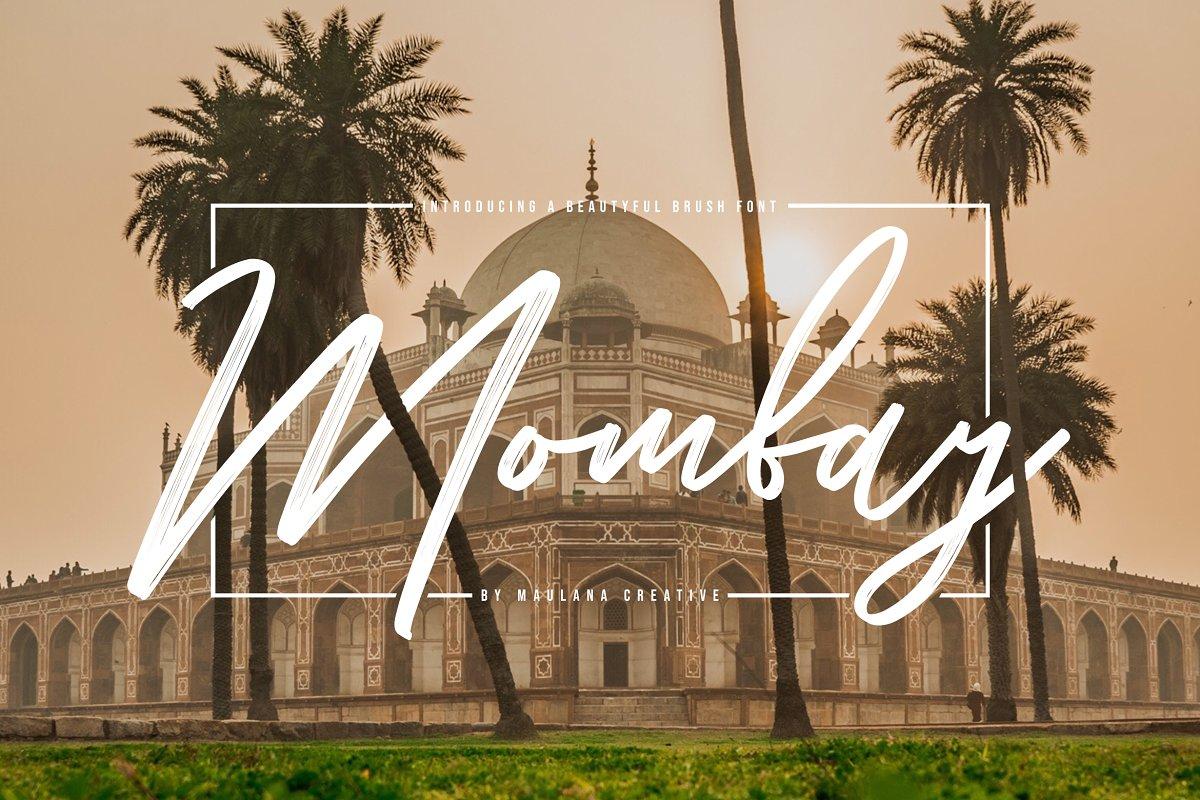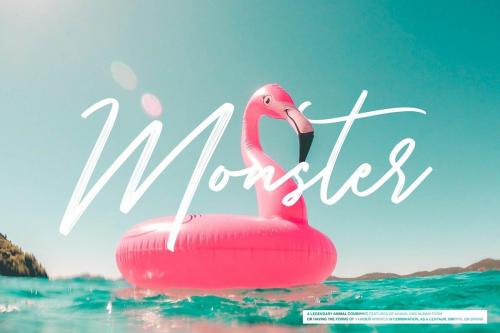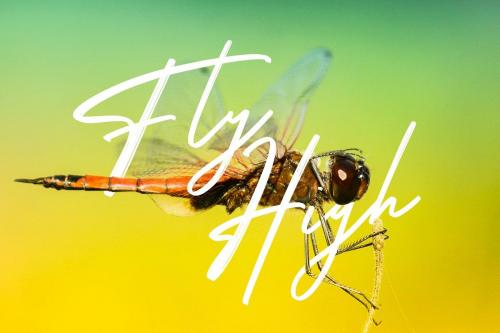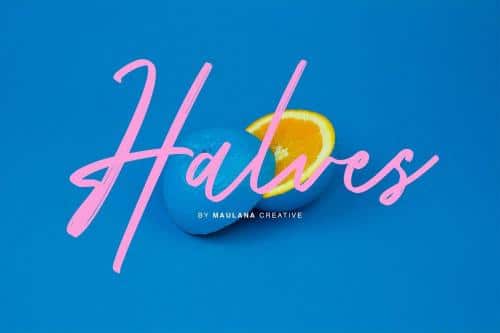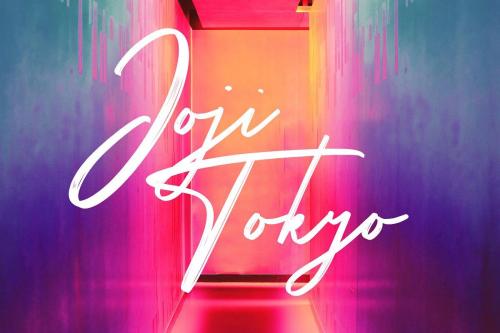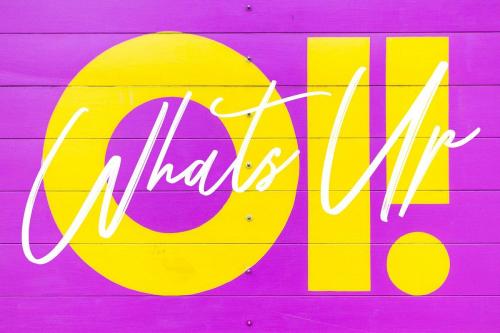
Mombay Brush Font is a new handwritten brush script font by Maulana Creative. It’s textured brush font, contemporary approach to design, handmade natural with an irregular baseline. Suitable for use in title design.
Introducing Mombay Font. Give your designs an authentic brush handcrafted feel. “Mombay Brush” is perfectly suited to stationery, logos. Such as apparel, invitations, books tittle, stationery design, quotes, branding, logos, greeting card, t-shirt, packaging design, poster and more.